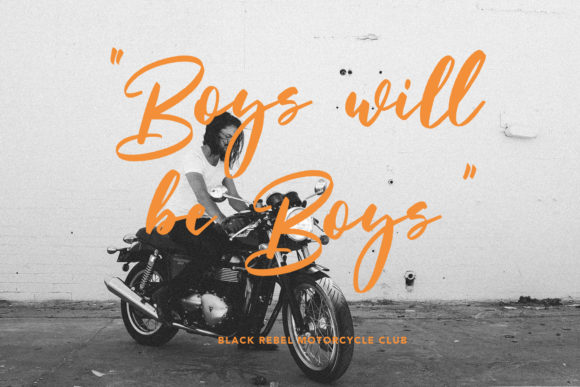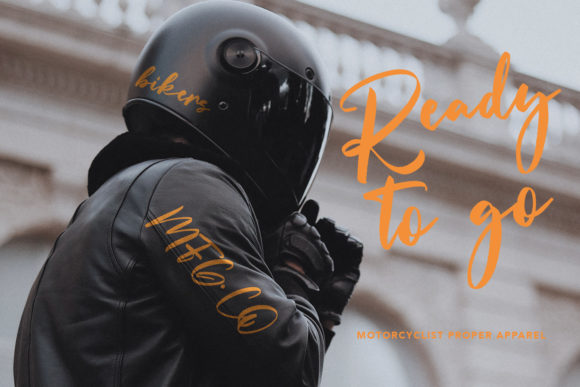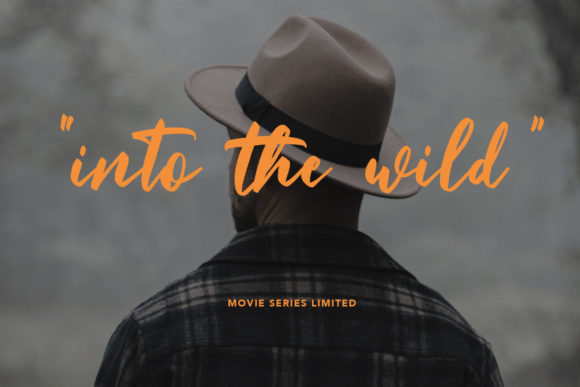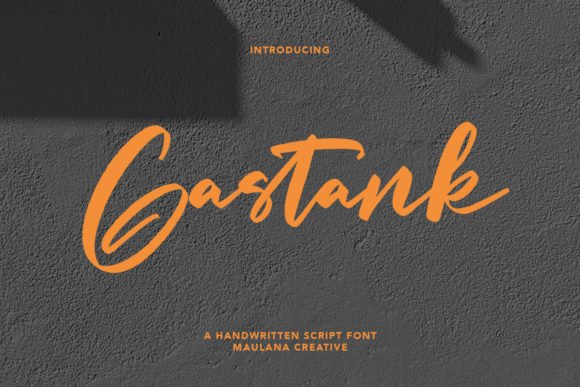
Introduction to Gastank Font
Gastank is a cursive and elegant handwritten font.
It looks beautiful on a variety of designs requiring a personalized style, such as wedding invitations, thank you cards, weddings, greeting cards, logos and so on .